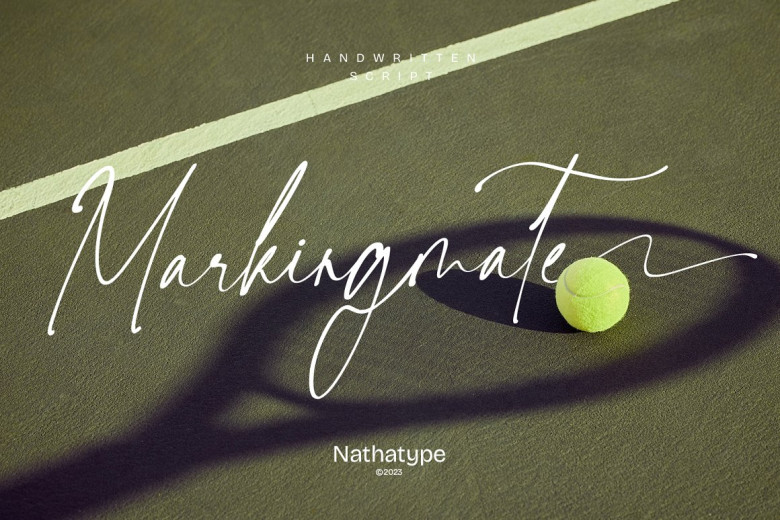
Markingmate Font
Markingmate is an exquisite script type created to emulate the fluidity and character of continuous handwriting, offering subtle contrasts that create a delicate balance between sophistication and accessibility. Each stroke captures hand drawn elegance through fluidity, structure and harmony – something no other script type could match!
Marking Mate stands out with its gentle curves and transitions that effortlessly lead the reader’s eye across the page. Additionally, its irregularities create an authentic handwritten feel.
Markingmate Handwritten Script Font